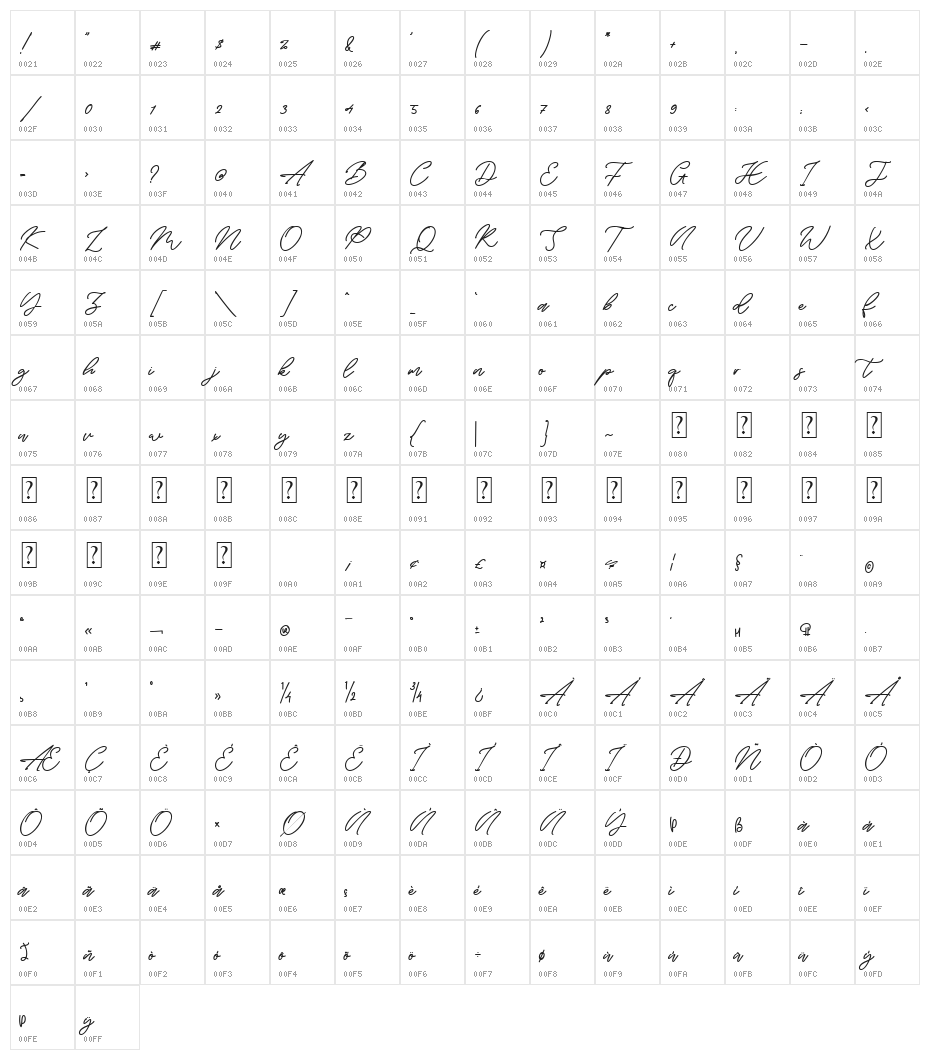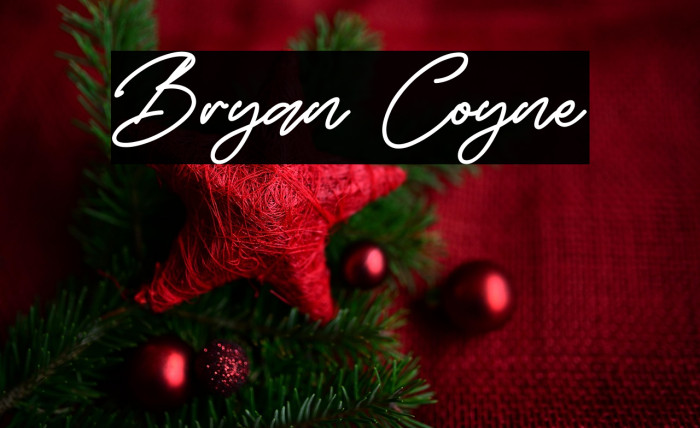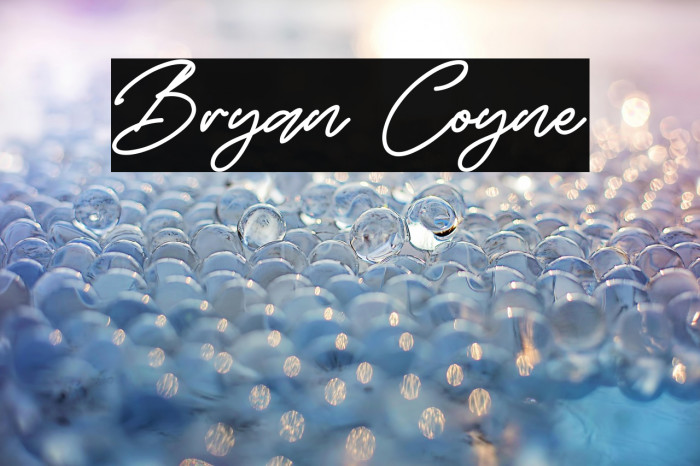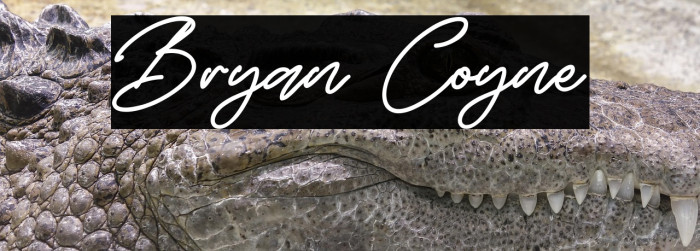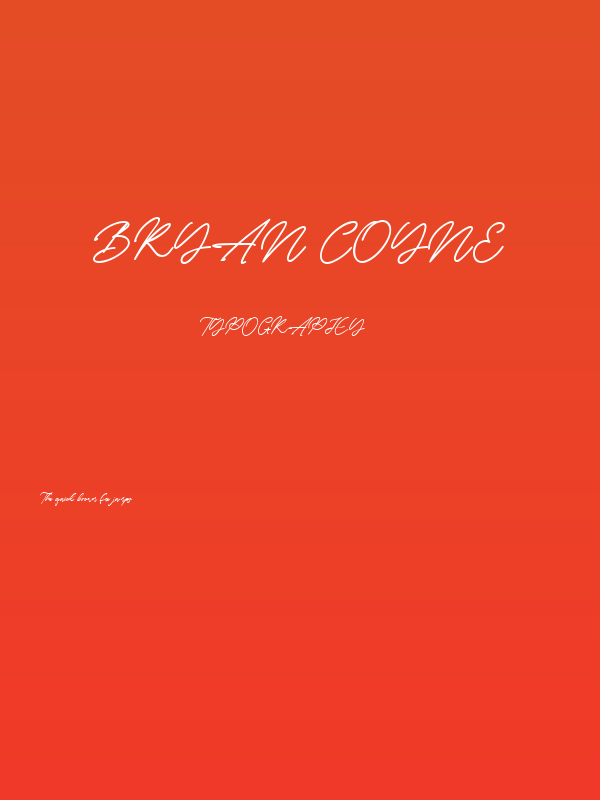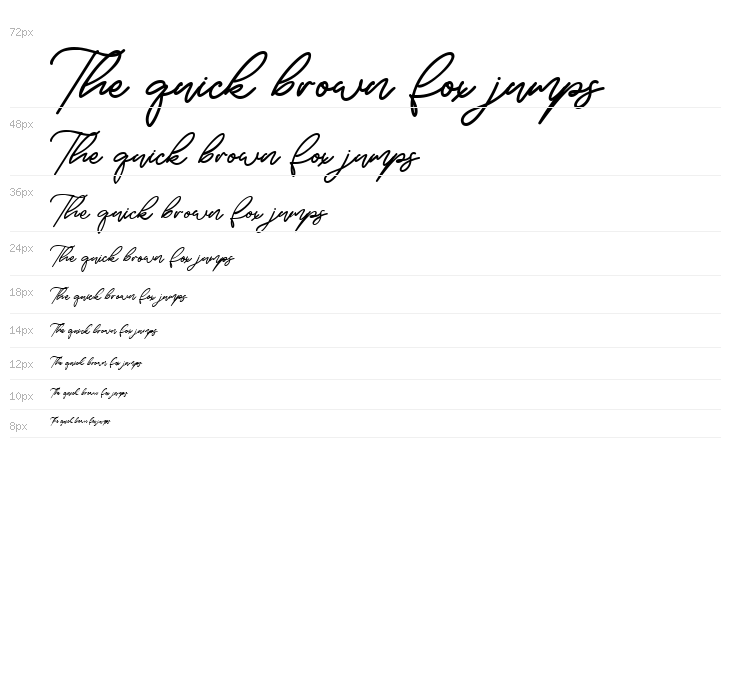
Bryan Coyne Font
Bryan Coyne Description
A flowing, cursive script font with elegant, connected letterforms and a handwritten appearance. The strokes are smooth and slightly varied in thickness, giving a natural and expressive feel. The uppercase letters are ornate and sweeping, while the lowercase maintains readability with a playful touch.
| Overall Style | Decorative, Handwritten, Elegant |
| Use Case | Logos, Invitations, Headlines, Decorative text |
| Proposed Projects | Wedding invitations, greeting cards, branding, personal signatures, quotes, event posters. |